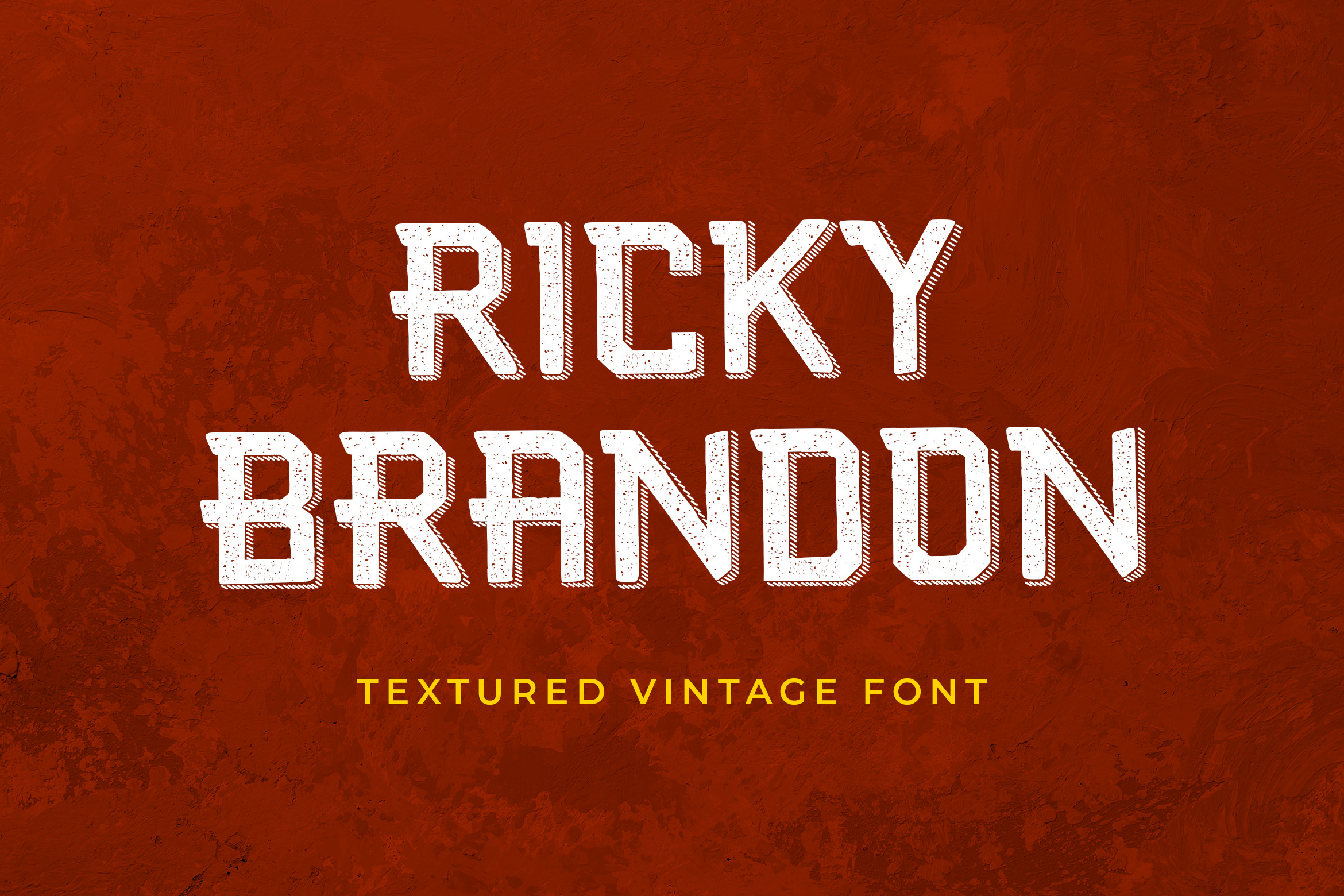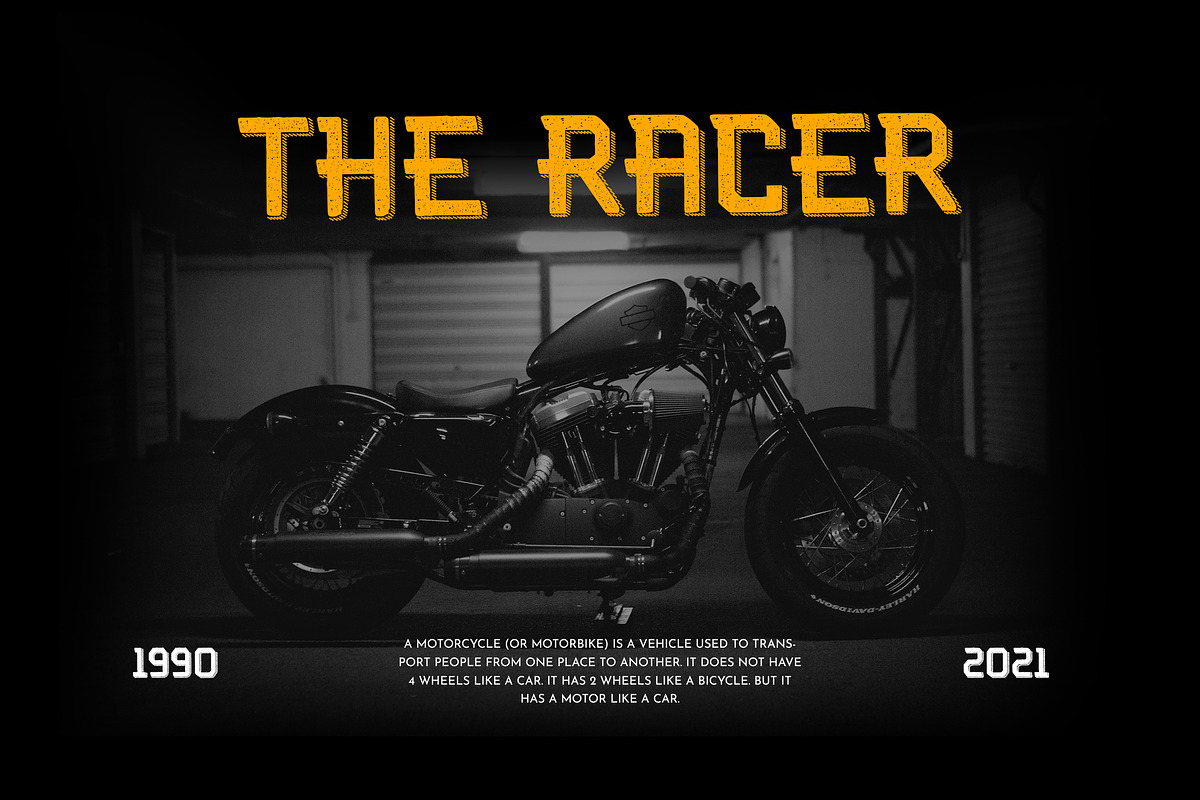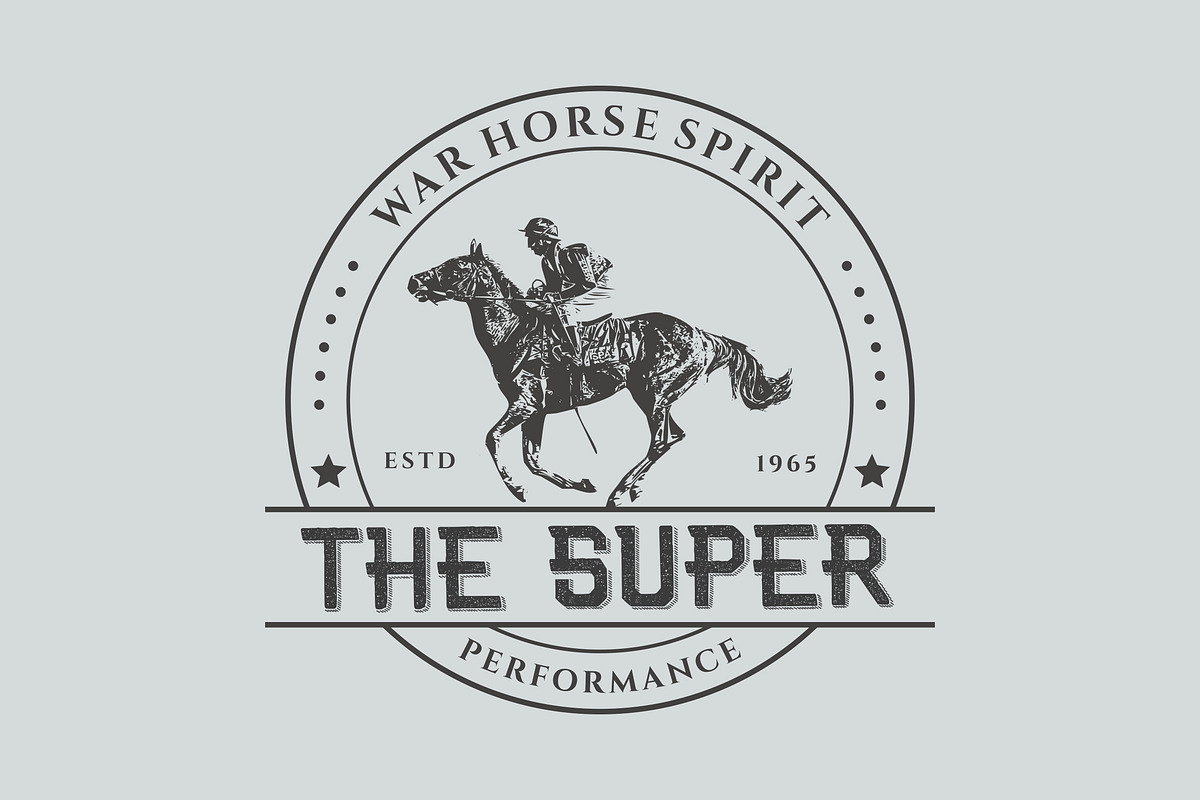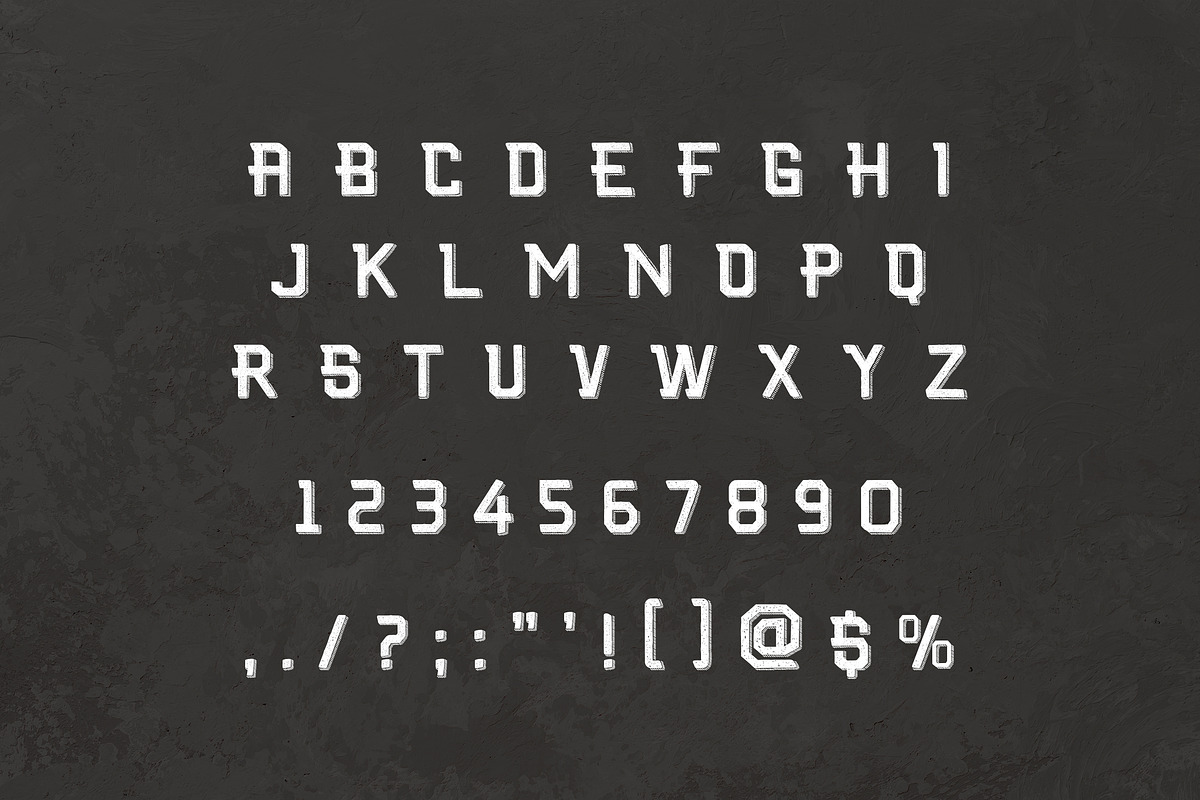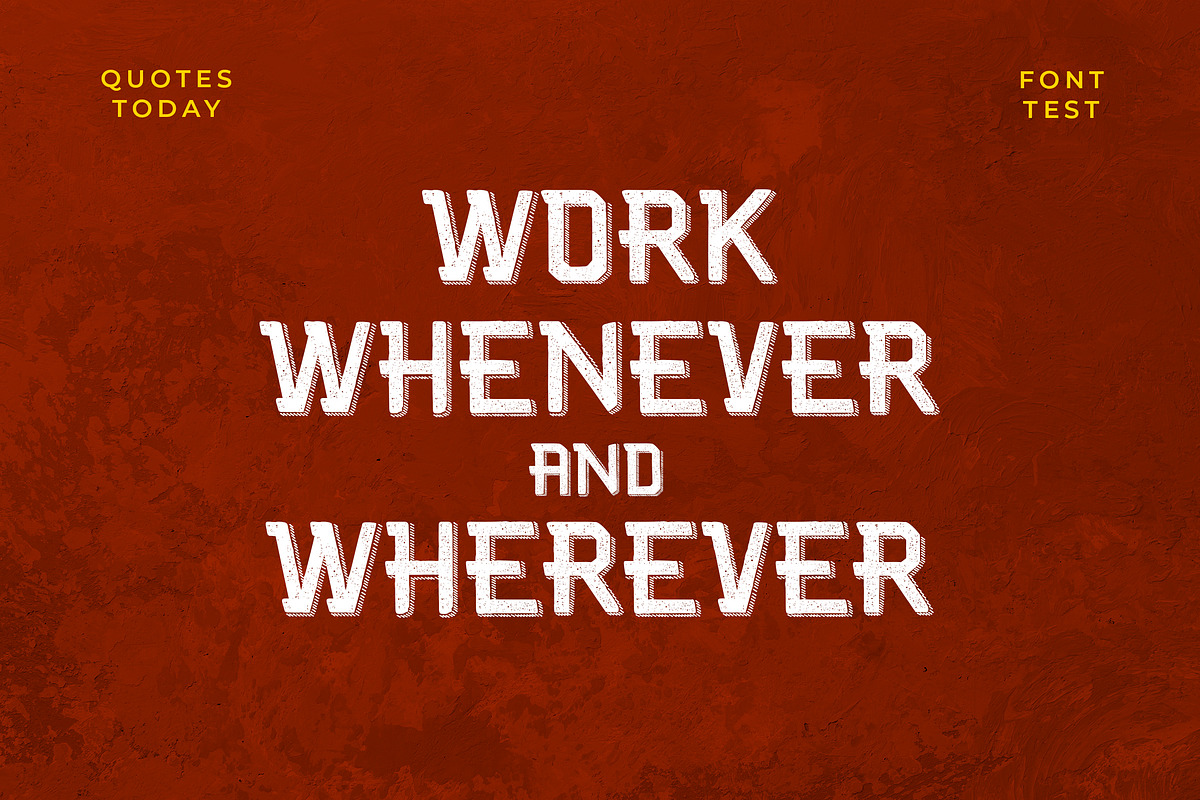
Ricky Brandon Serif Display Font
Introducing of our new product the name is Ricky Brandon Serif Display Font with its unique curves and cut-ins making it one of the most memorable caps fonts on the market .This font is perfect for fashion related branding or editorial design and displays both masculine and feminine qualities. Also you use this font on Logo & Label Design, Apparel Design, Music, Advertising, T-shirts, Brochures And more!